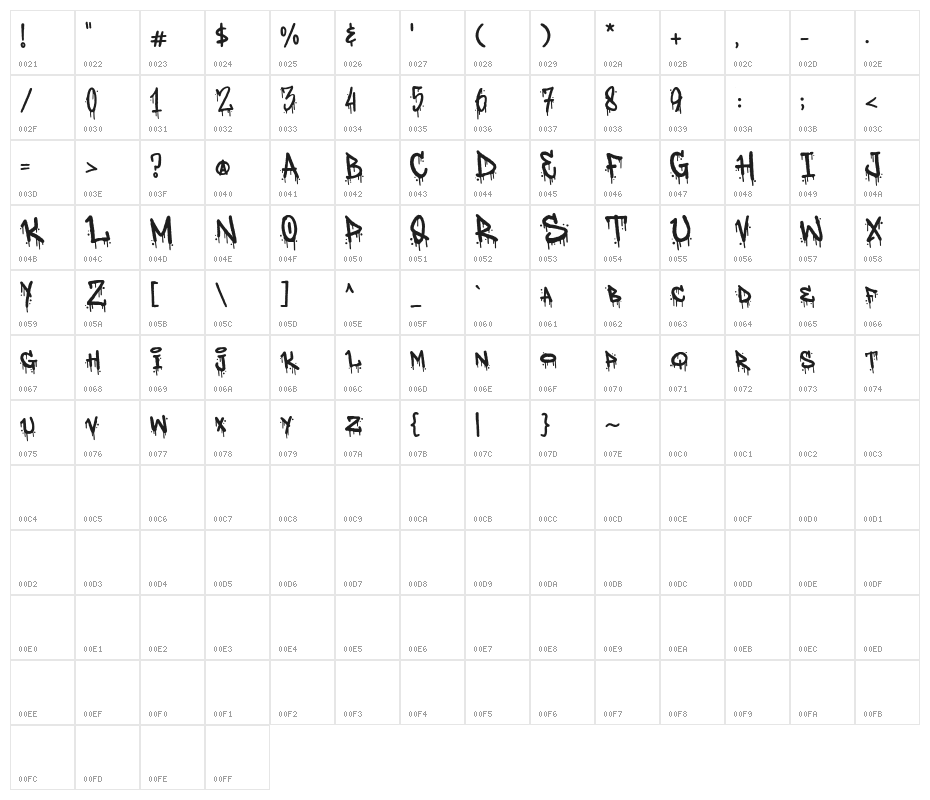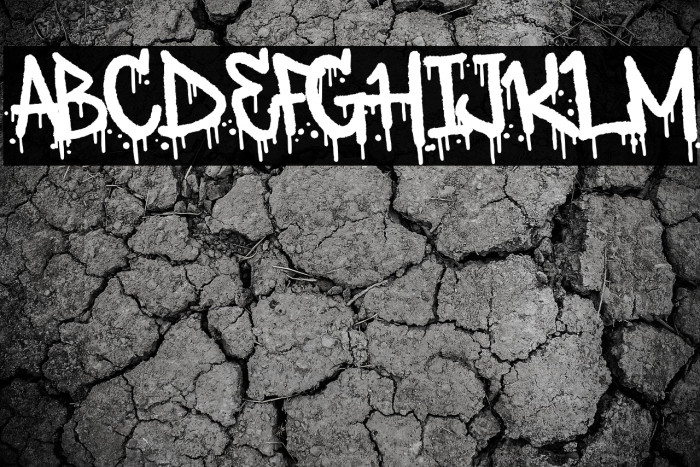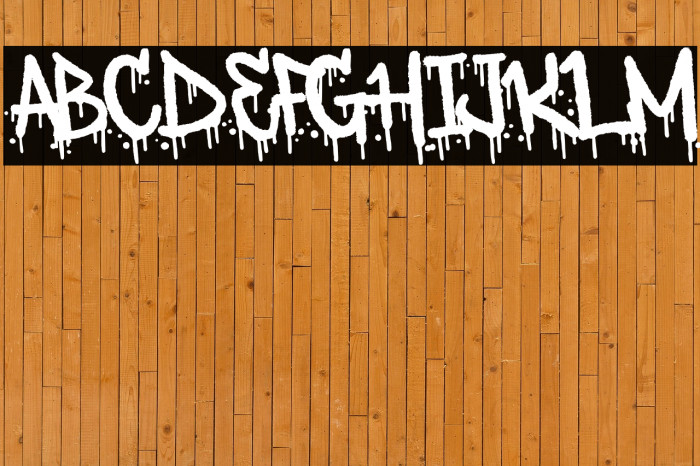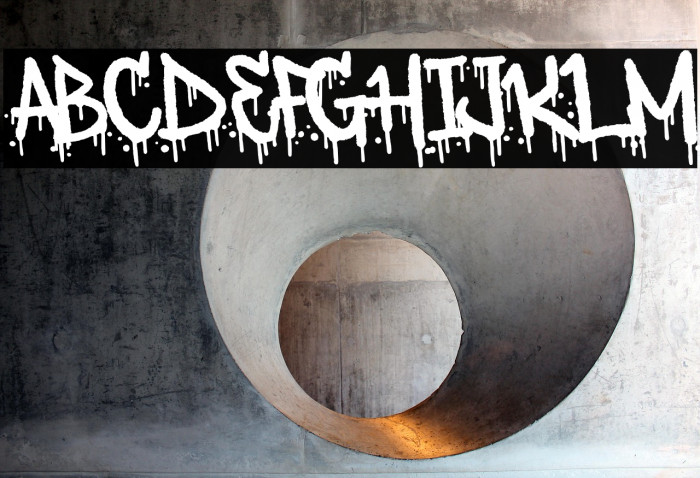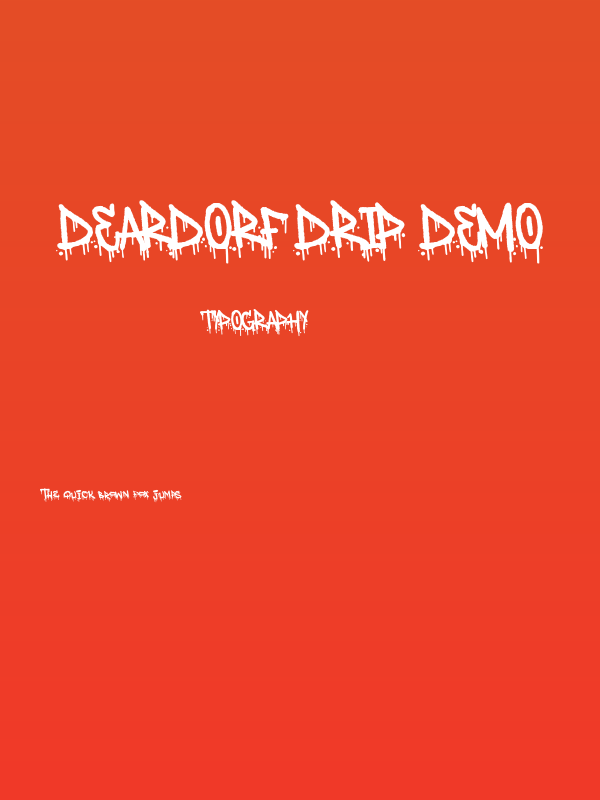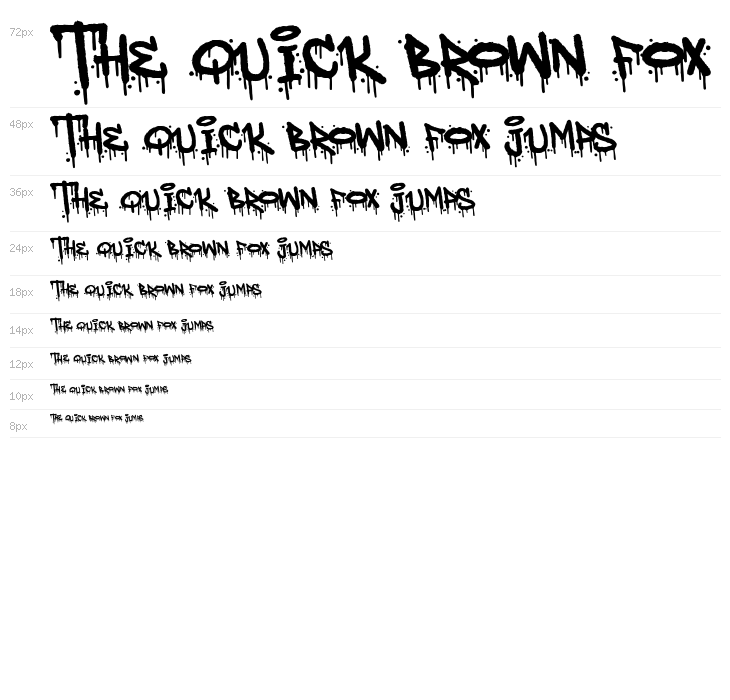
Deardorf Drip Demo Font
Deardorf Drip Demo Description
This font features a unique and edgy design with a dripping effect that gives it a graffiti-like appearance. The letters are bold and have a rough, hand-drawn quality, making them stand out with a rebellious and artistic flair. The uppercase and lowercase letters maintain a consistent style, with each character appearing as though it is melting or dripping downwards. This effect is also applied to the numbers and special characters, creating a cohesive and visually striking typeface. The font's irregular and dynamic shapes make it ideal for projects that require a bold and unconventional look.
| Overall Style | Modern, Urban |
| Use Case | Logos, Posters, Album covers |
| Proposed Projects | Ideal for street art designs, edgy posters, music album covers, and urban-themed branding. |